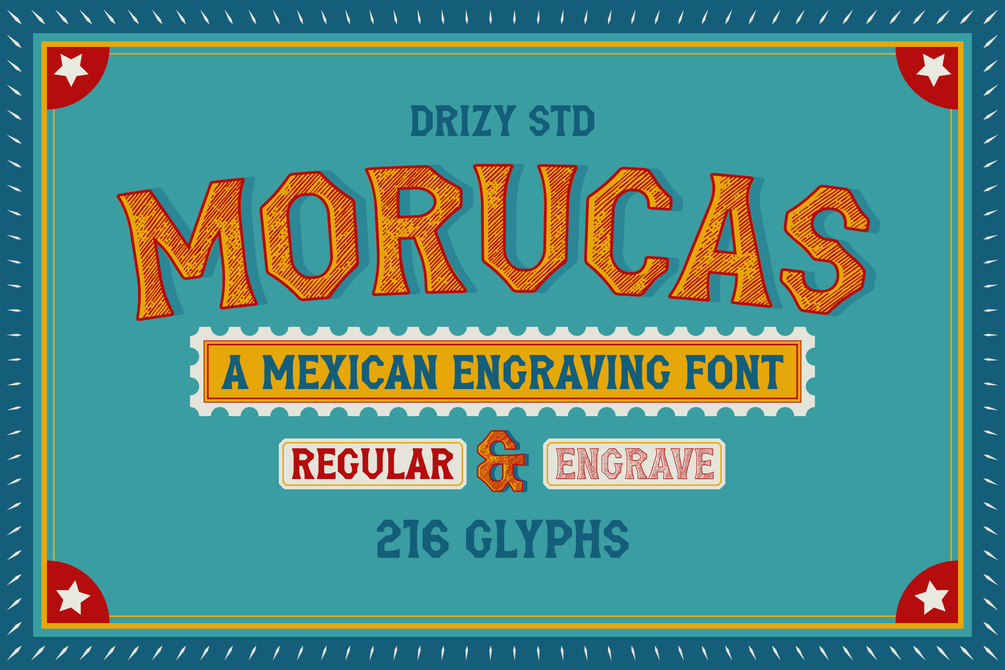
Morucas – Mexican Engraving Font
Morucas – Mexican Engraving Font is a striking tribute to the rich visual heritage of Vintage-Mexican design. Inspired by traditional engraving techniques, this font weaves bold lines with intricate details, echoing the spirit of hand carved artistry. Morucas brings a warm, nostalgic flair to your work. Let your designs tell a story steeped in tradition and soul.